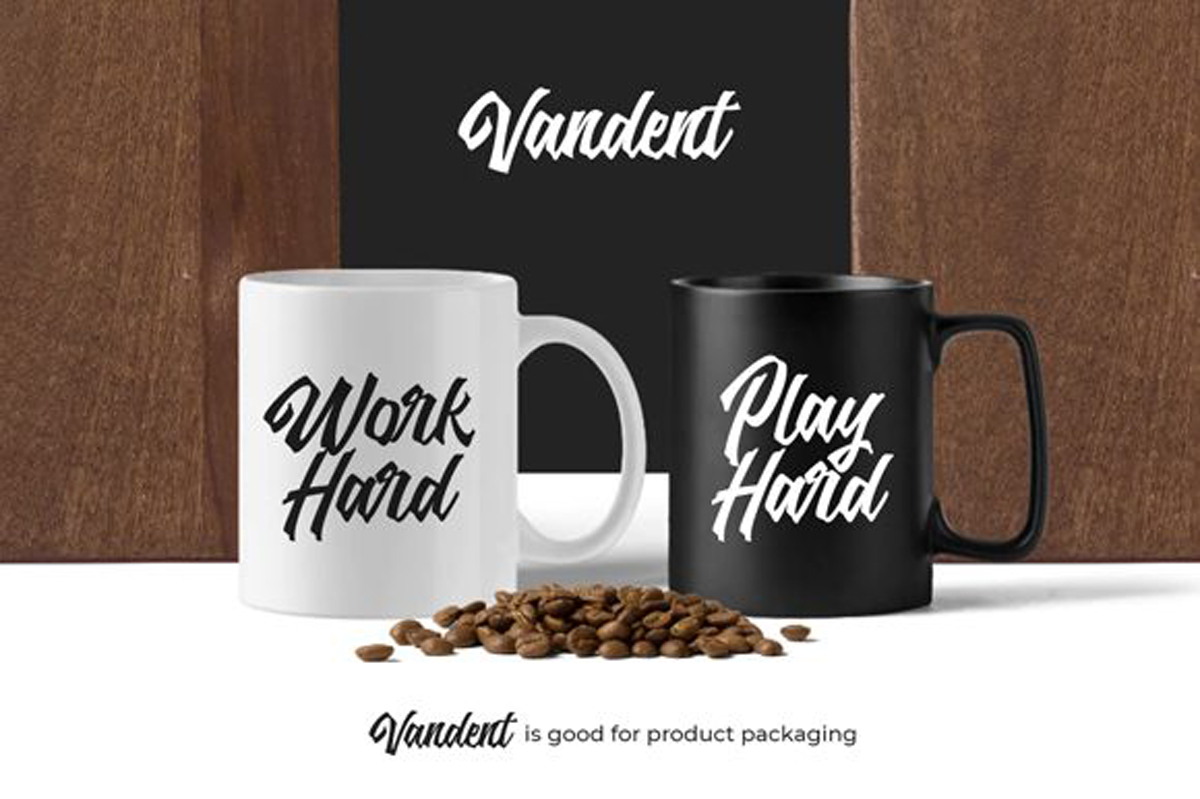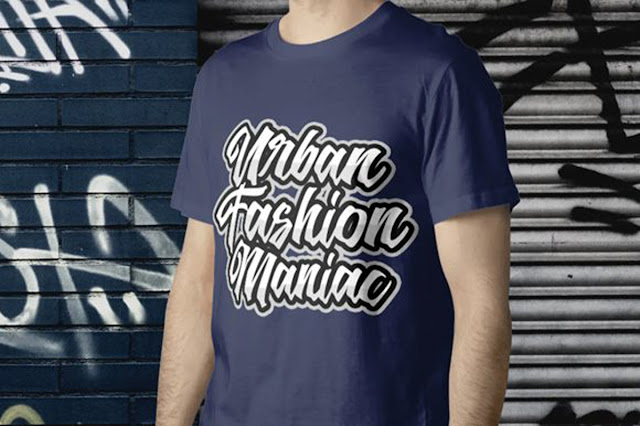
Vandent Font
Free Download Vandent Font with high speed direct link. Vandent is an elegant and flowing handwritten font. It maintains its classy calligraphic influences while feeling contemporary and fresh. Fall in love with this font and bring your projects to the highest levels!